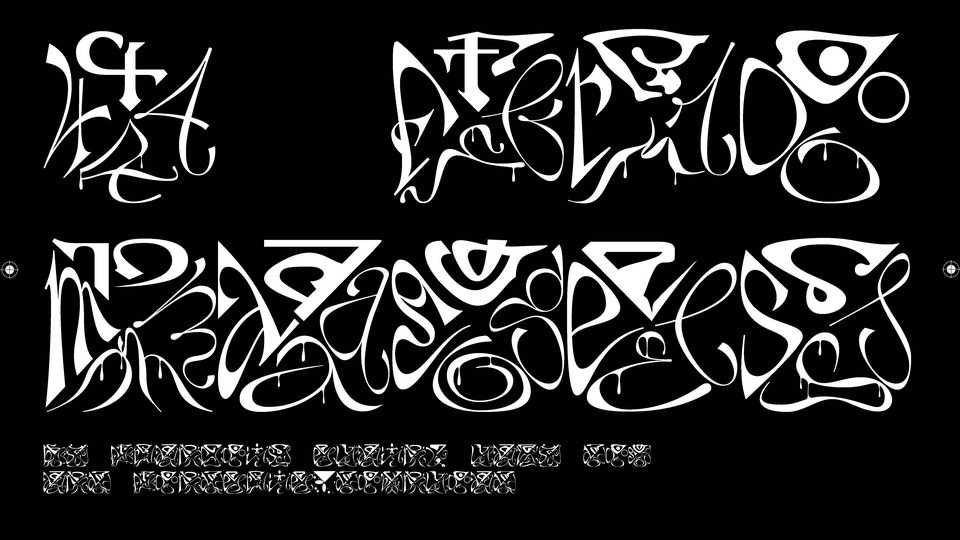
Download 4 Fromages font, a creative display typeface with a unique vibe. 4 Fromages can be used for posters, album artworks and typographic compositions.